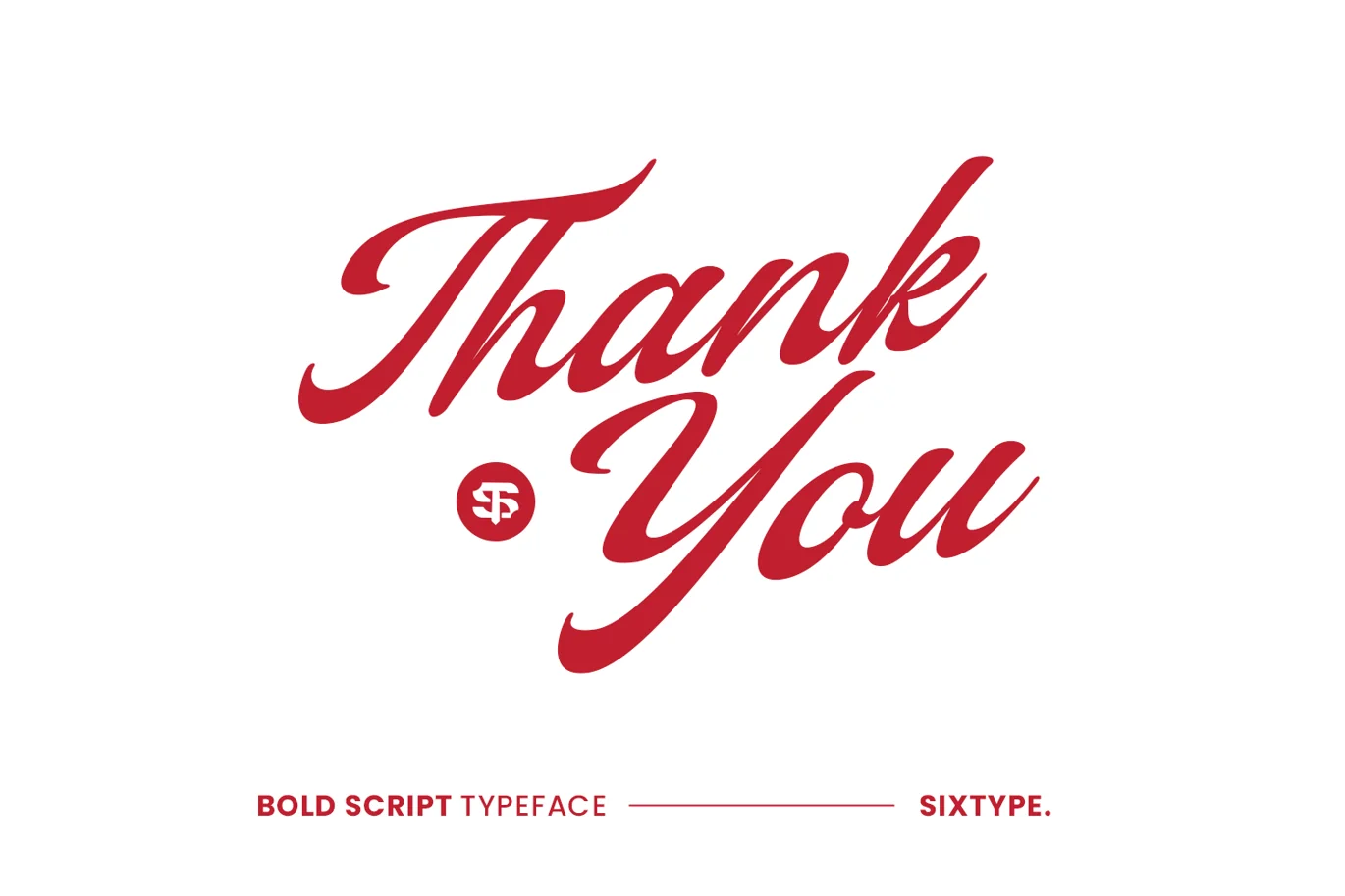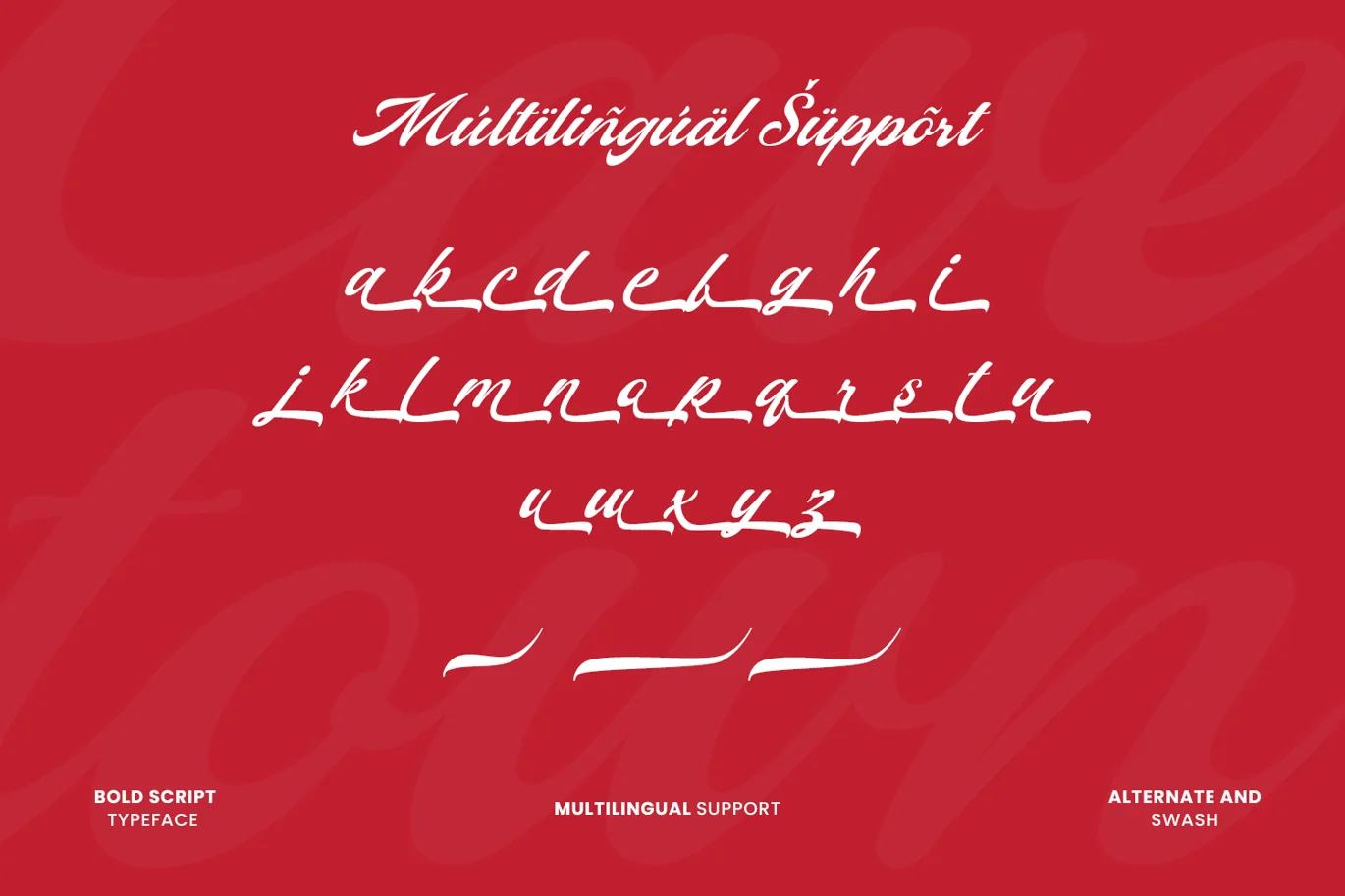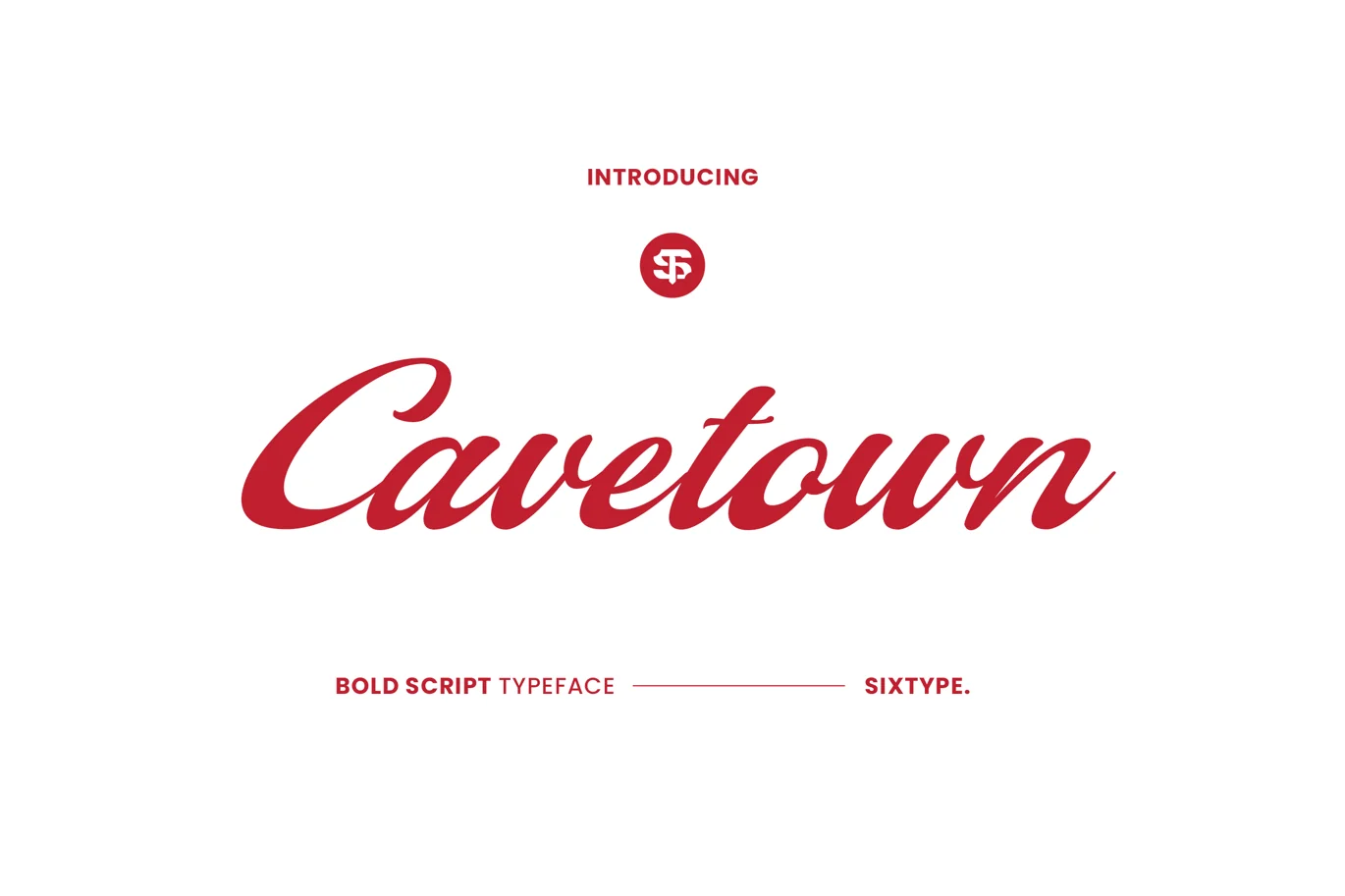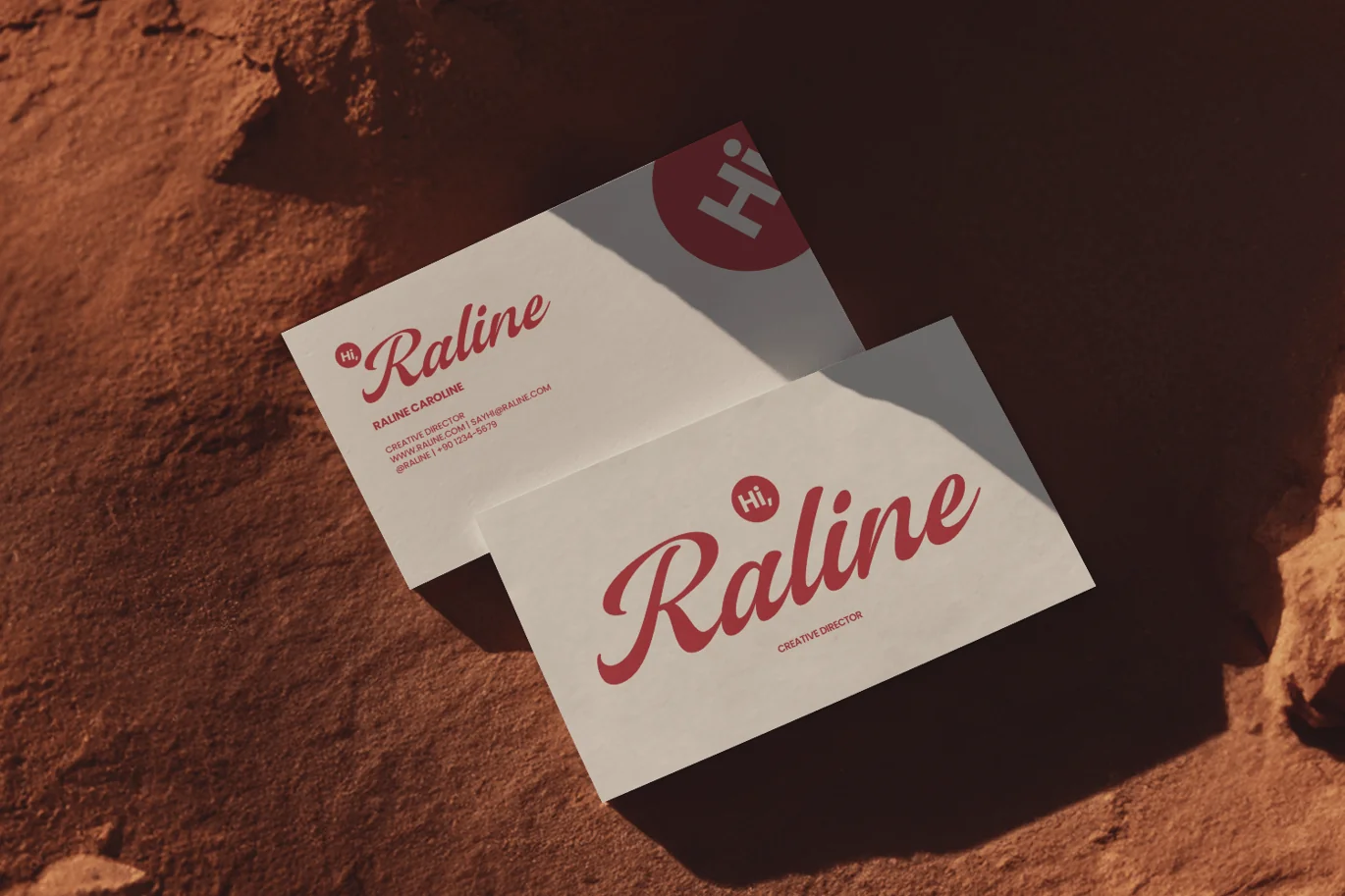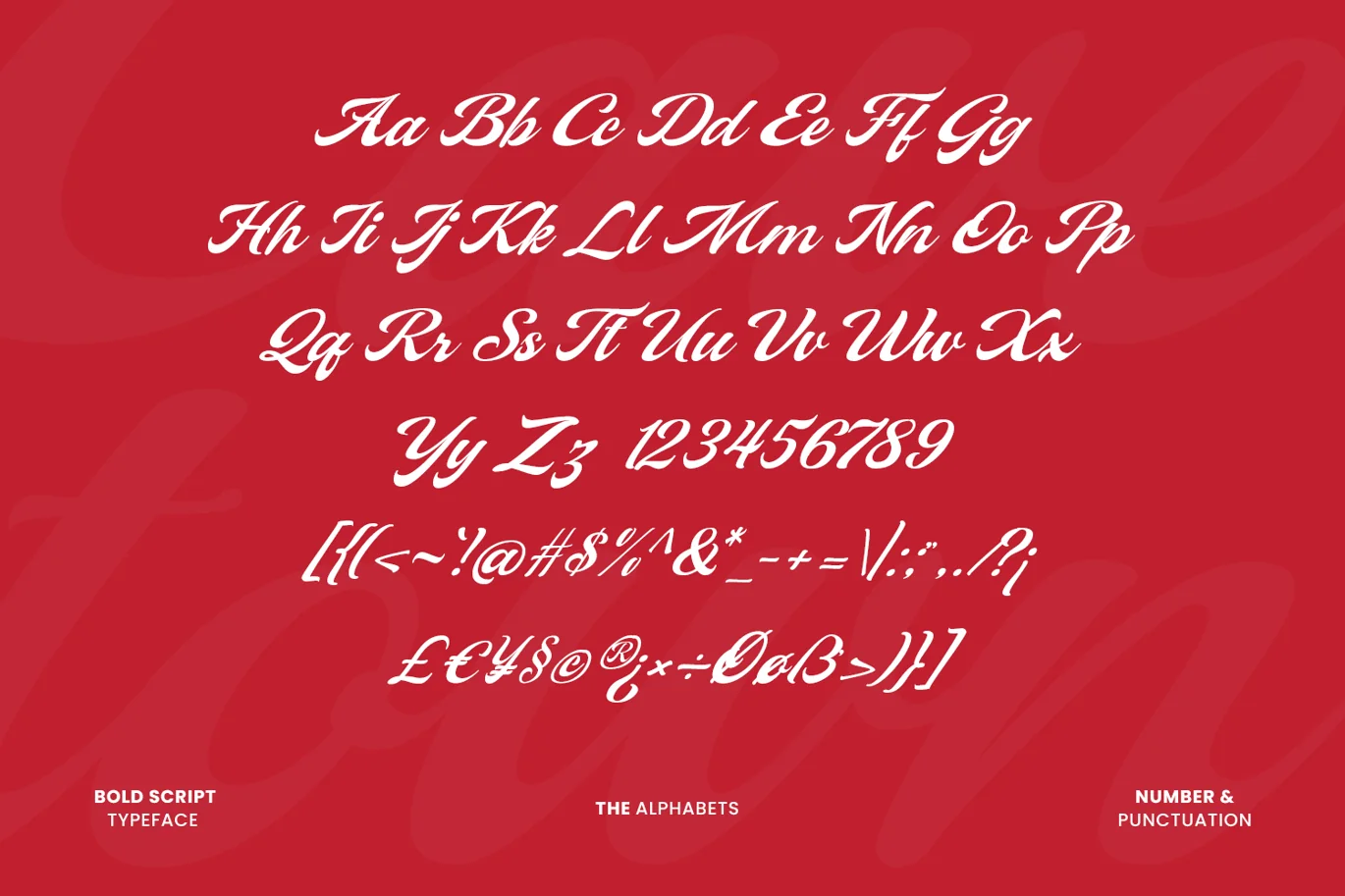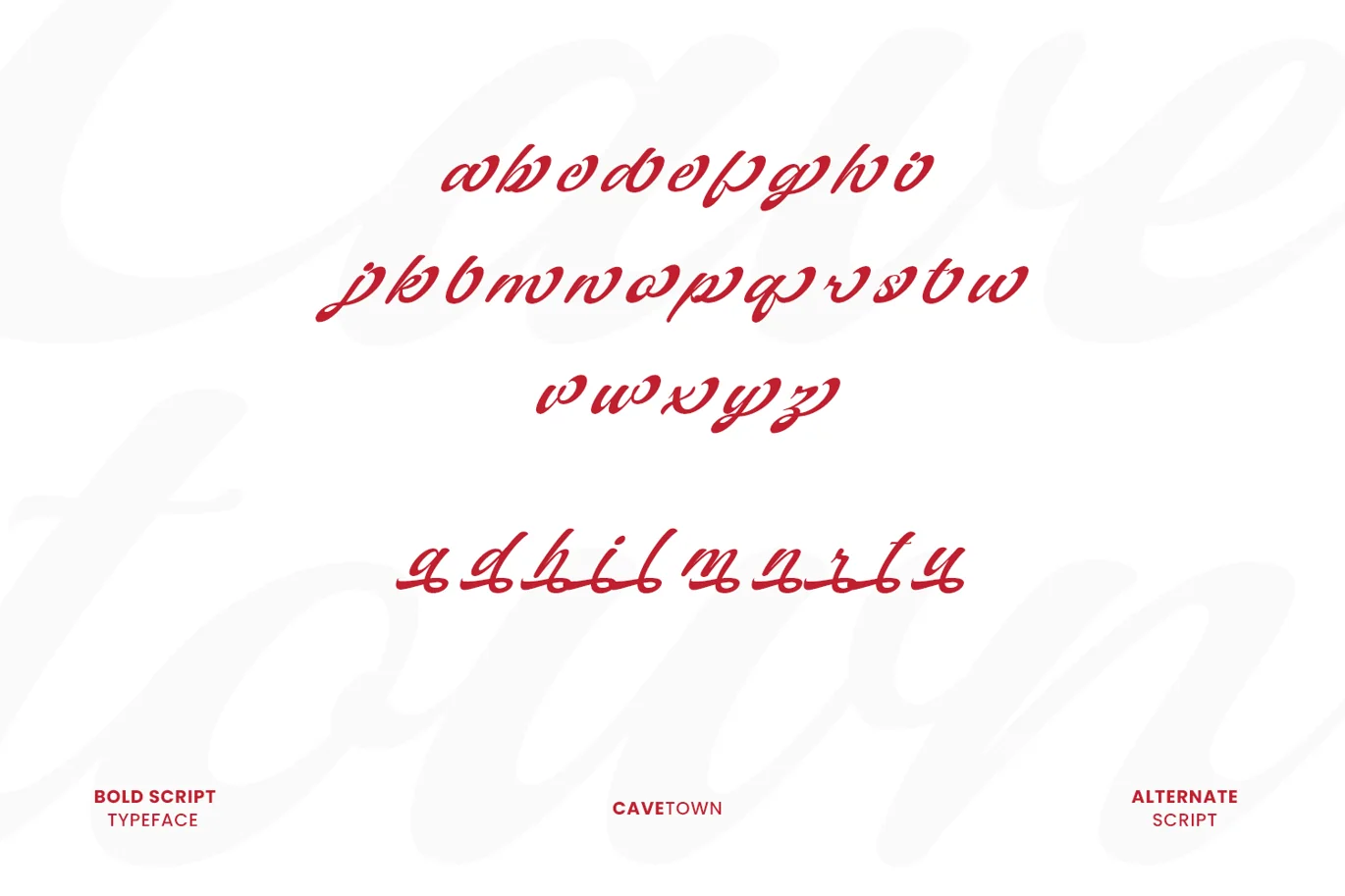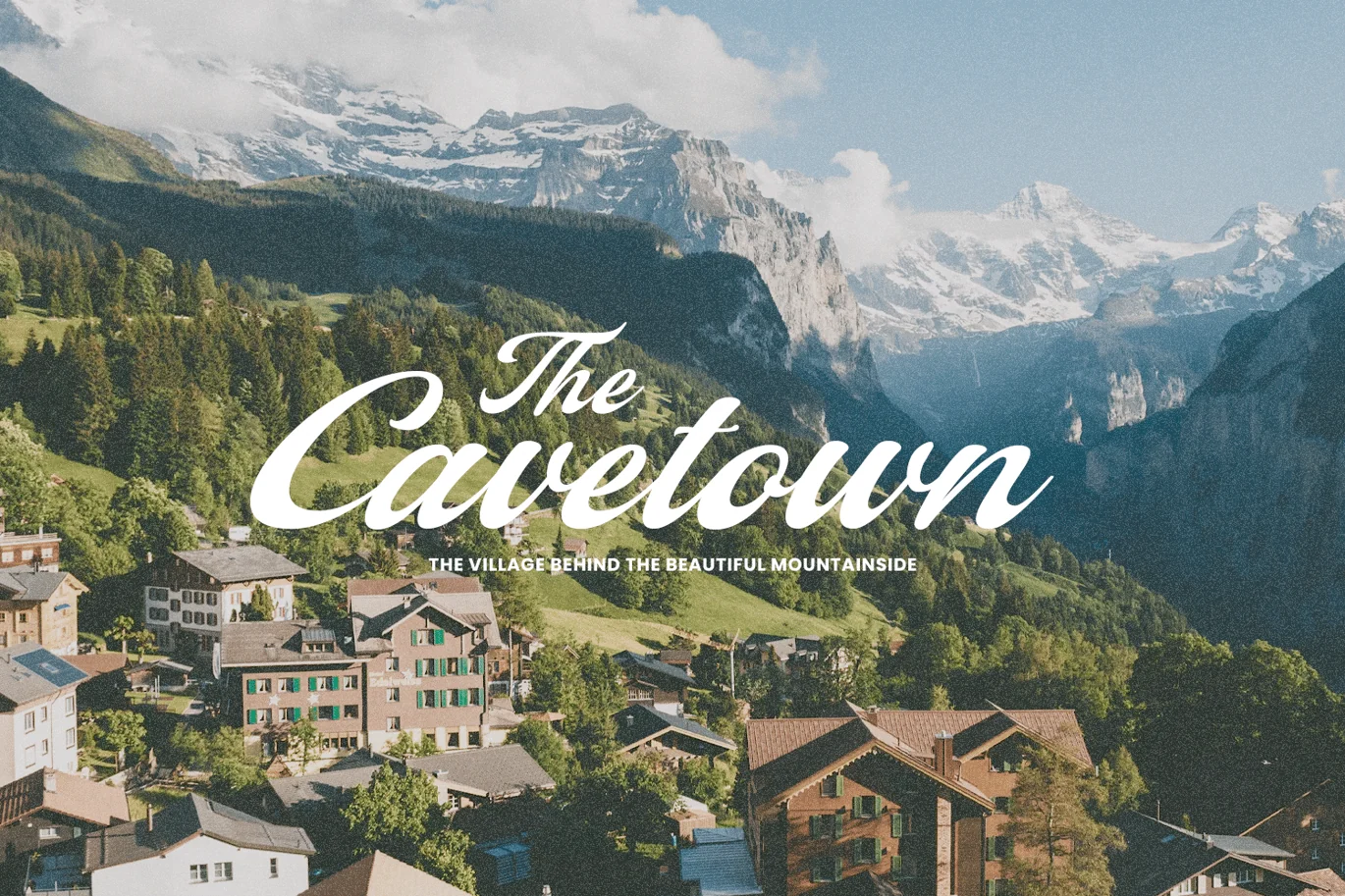
Cavetown Font – Bold Script Typeface
Introducing Cavetown, a bold script typeface with a touch of underground grit. Cavetown is a font that’s both playful and edgy, perfect for capturing the attention of your audience. It’s reminiscent of hand-painted signage, giving your designs a personal touch. The all-caps design makes a statement, while the script style adds a touch of whimsy.